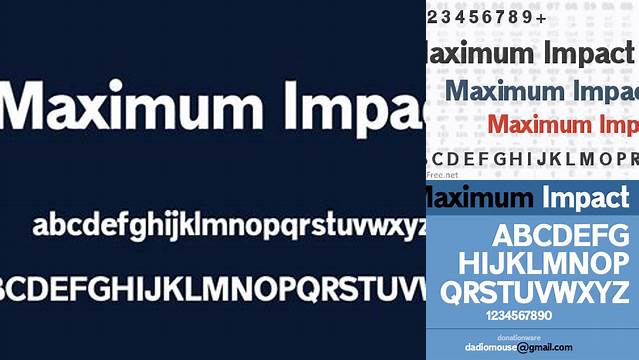
Maximum Impact Font: Free Download Guide
Hey guys! Are you looking to make your designs pop? Need a font that screams attention? Then you've probably heard about the Maximum Impact font. It's bold, it's powerful, and it's perfect for headlines, posters, and anything else that needs a serious punch. Finding the perfect font can be a game-changer for your design projects, and Maximum Impact is definitely one to consider. But where do you find it? And how can you download it for free? Don't worry, we've got you covered! This comprehensive guide will walk you through everything you need to know about the Maximum Impact font and how to get your hands on it without breaking the bank. We'll explore its uses, discuss its characteristics, and point you towards reliable sources for free downloads. So, buckle up and let's dive into the world of Maximum Impact!
Maximum Impact Font: What Makes It So Popular?
So, what's the deal with the Maximum Impact font anyway? Why is it so widely used and loved by designers? Well, its popularity stems from its inherently strong and attention-grabbing design. Imagine a font that's been weightlifting – that's Maximum Impact! Its thick, condensed letters exude a sense of power and urgency, making it ideal for situations where you need to make a bold statement. This is why you'll often see it used in movie posters, video game titles, and advertising campaigns. The sheer visual impact of this font is undeniable. It’s not subtle; it’s not understated. It's designed to grab your attention and hold it. Think about those action movie posters with huge, impactful titles – chances are, Maximum Impact or a very similar font was used. Beyond its visual appeal, the Maximum Impact font is also incredibly versatile. While it's primarily known for its use in headlines and titles, it can also be surprisingly effective in other contexts. For instance, it can be used for logos, branding materials, and even short snippets of text within a larger design. Its legibility, even at smaller sizes, is another factor contributing to its popularity. The clean lines and distinct letterforms ensure that your message is clear and easily readable, even when the font is scaled down. The font's design ensures that each letter stands out, even when placed close together, which is crucial for creating a strong visual hierarchy. In essence, the Maximum Impact font is popular because it delivers exactly what its name suggests: maximum impact. It’s a font that commands attention, conveys strength, and makes a lasting impression. And who doesn’t want that in their designs?
Designing Headlines with Maximum Impact Font
When it comes to crafting attention-grabbing headlines, the Maximum Impact font is a true powerhouse. Its bold, condensed letterforms are tailor-made for making a statement. But simply slapping the font onto your headline isn't enough to guarantee success. You need to understand the nuances of using this font effectively. First and foremost, consider the message you're trying to convey. The Maximum Impact font is best suited for headlines that need to project strength, urgency, or importance. Think about movie titles, event announcements, or calls to action. If you're aiming for a more subtle or elegant tone, this font might not be the best choice. Next, pay close attention to the size and spacing of your headline. Because Maximum Impact is a condensed font, the letters are tightly packed together. This can create a powerful visual effect, but it can also make the headline difficult to read if the spacing is too tight. Experiment with different letter and word spacing options to find the right balance between impact and legibility. In most cases, slightly increasing the letter spacing can improve readability without sacrificing the font's boldness. The size of your headline is also critical. A headline that's too small will get lost, while a headline that's too large can feel overwhelming. Consider the overall layout of your design and choose a headline size that complements the other elements. A good rule of thumb is to make the headline the largest element on the page, but not so large that it dominates everything else. Color is another important factor to consider. The Maximum Impact font looks great in a variety of colors, but certain combinations will be more effective than others. High-contrast color schemes, such as black and white or dark blue and yellow, tend to work well. Avoid using colors that are too similar, as this can make the headline difficult to read. Finally, don't be afraid to experiment with different variations of the font. Some fonts come in multiple weights (e.g., regular, bold, extra-bold), and using a heavier weight can amplify the impact of your headline. You can also try using different letter cases (e.g., uppercase, lowercase, title case) to see what works best for your design. By following these tips, you can harness the full power of the Maximum Impact font and create headlines that truly command attention.
Alternative Fonts Similar to Maximum Impact
Okay, so maybe you're not finding the exact Maximum Impact font you're looking for, or perhaps you want to explore some similar styles. That's perfectly fine! The world of typography is vast and full of amazing options. The good news is that there are plenty of fonts out there that capture the essence of Maximum Impact – that bold, condensed, attention-grabbing aesthetic – while offering their own unique flair. One excellent alternative is the Impact font itself. Impact is a classic font that shares many of the same characteristics as Maximum Impact. It's bold, condensed, and incredibly legible, making it a great choice for headlines and titles. Impact is also a system font, meaning it's likely already installed on your computer, which is a major convenience. Another popular option is Bebas Neue. Bebas Neue is a sans-serif font that's known for its tall, narrow letterforms and clean lines. It's a versatile font that works well in a variety of design contexts, and its strong vertical presence makes it a great alternative to Maximum Impact. Bebas Neue is also free for both personal and commercial use, which is a huge bonus. For a slightly more modern and geometric feel, consider Montserrat. Montserrat is a well-designed sans-serif font family that includes a range of weights, from thin to black. The heavier weights of Montserrat have a similar visual impact to Maximum Impact, while the lighter weights offer more flexibility for body text. If you're looking for something a bit more edgy and industrial, check out the Exo font family. Exo is a futuristic-looking sans-serif font with a strong, geometric design. Its bold weights are particularly effective for headlines and titles, and its unique letterforms give it a distinct personality. Finally, don't overlook the importance of exploring online font libraries like Google Fonts, DaFont, and FontSpace. These websites are treasure troves of free fonts, and you're sure to find many that capture the Maximum Impact vibe. When searching for alternatives, try using keywords like “bold,” “condensed,” “sans-serif,” and “headline font.” By experimenting with different fonts, you can discover new favorites and add even more firepower to your design arsenal. Remember, the key is to find a font that not only looks good but also conveys the right message and fits the overall style of your project.
Using Maximum Impact Font in Logos and Branding
Can the Maximum Impact font be a good choice for logos and branding? The answer is a resounding